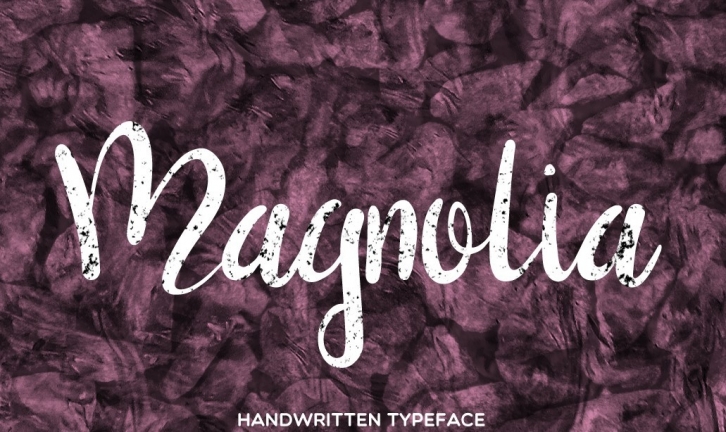
Magnolia is a delicate and elegant handwritten font. Its distinct and well balanced letters make this font a masterpiece. Fall in love with its incredibly versatile style and use it to create spectacular designs!